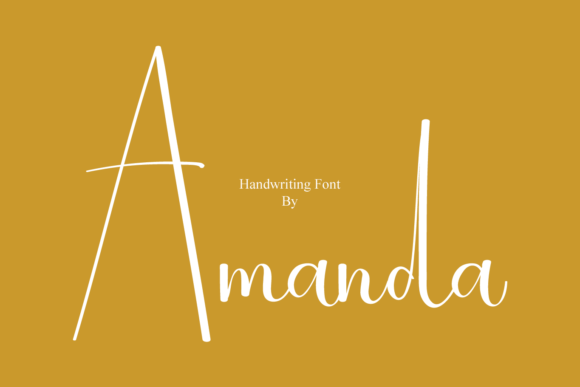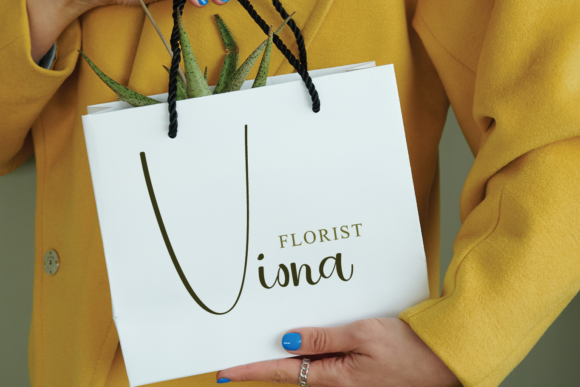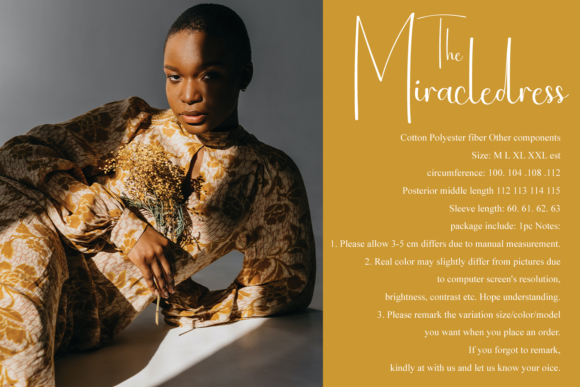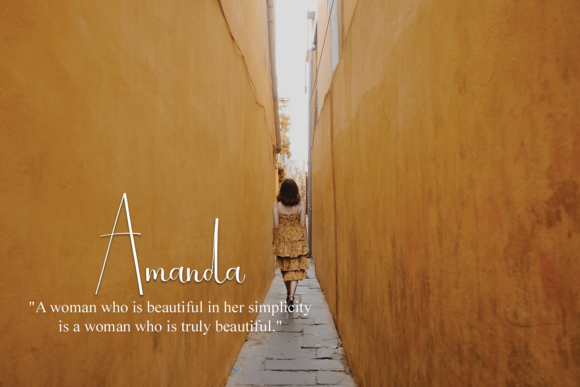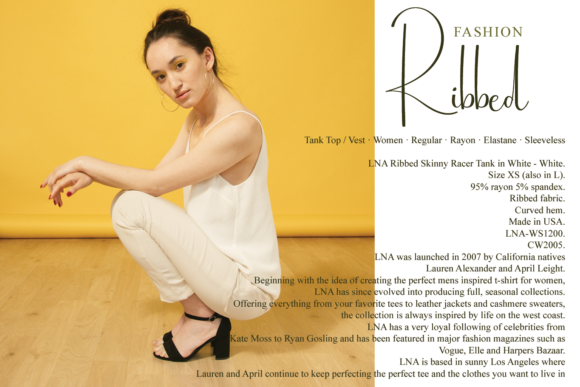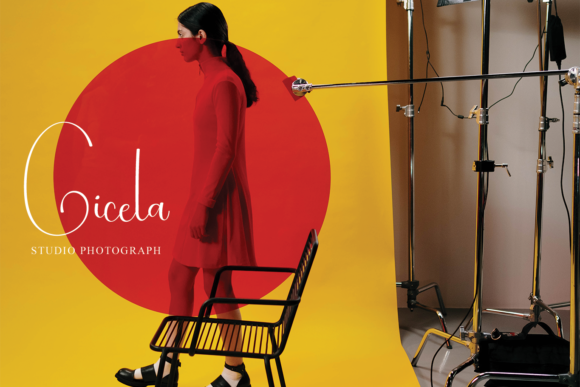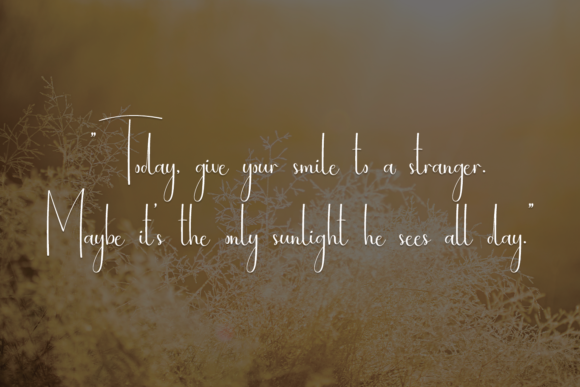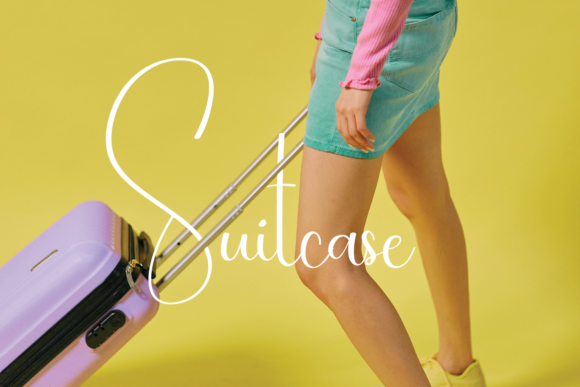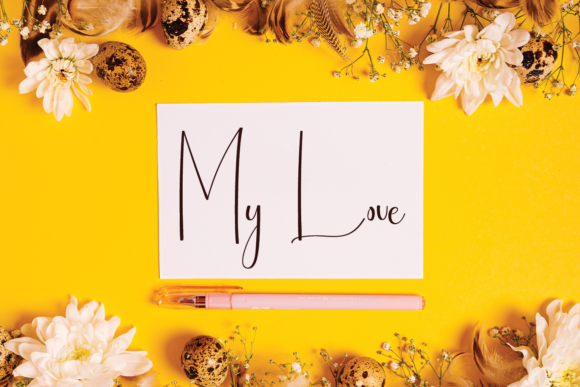
Amanda Font
About Amanda Font
“Amanda” is a captivating and slim calligraphy script font that emanates romance and elegance. With its enchanting letterforms and graceful flow, this font brings a sense of luxury and sophistication to any creative design or project.
The font’s characters possess a unique charm, seemingly dancing along the baseline with an air of playfulness. This dynamic quality infuses your text with movement and energy, capturing the viewer’s attention and creating a visually engaging experience. The fluid strokes and delicate curves contribute to the font’s romantic allure, evoking emotions of love and tenderness.
“Amanda” is the perfect choice for projects that require a touch of elegance and a hint of romance. Its slender and graceful appearance makes it an ideal companion for wedding invitations, love letters, and any design that seeks to convey heartfelt sentiments. The font’s calligraphic influences add a timeless and classic quality, making it suitable for both traditional and contemporary aesthetics.
The font’s luxurious spark is evident in its carefully crafted details. The refined letterforms and exquisite connections between characters contribute to a seamless and polished look. This attention to detail showcases the font’s commitment to providing a high-quality typographic experience that exudes sophistication.
Whether used in large headlines or smaller body text, “Amanda” maintains its legibility and readability. The balanced spacing and clear shapes ensure that your message is effectively communicated while maintaining the font’s elegant appearance. This versatility allows you to use the font across a range of design applications, from wedding stationery to branding materials and more.
“Amanda” adds a touch of opulence to your designs, elevating them to a higher level of refinement. Its romantic and slim calligraphy script style resonates with audiences seeking beauty and elegance. By incorporating “Amanda” into your projects, you’re able to infuse them with a sense of luxury and grace that captivates and inspires.